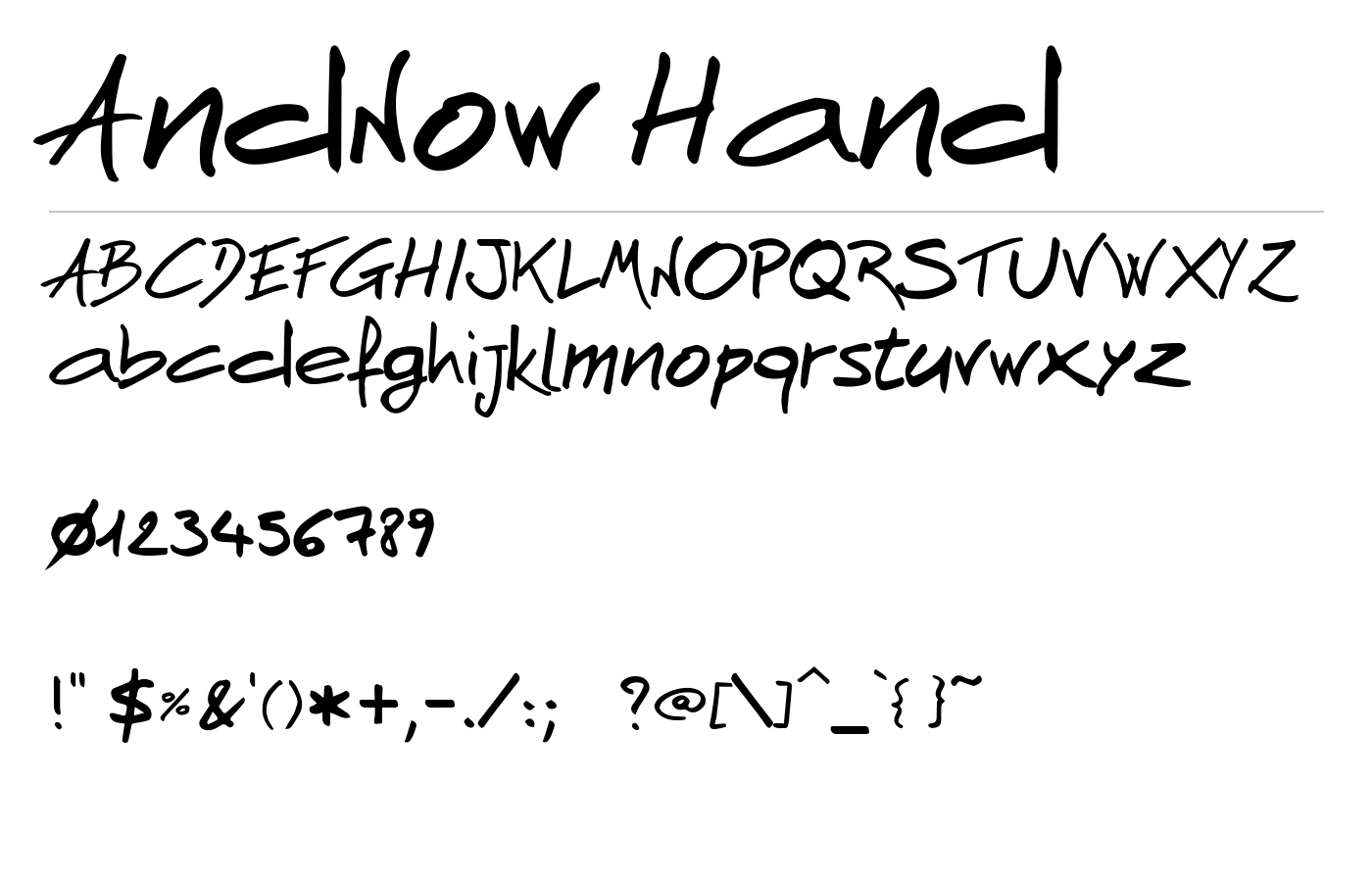
AndNow Hand is a casual, handwritten sans serif font with a lively and informal character. It features a medium weight with slightly varied stroke widths, playful letterforms, and a natural, flowing style that feels personal and approachable. This font works well for creative projects, casual branding, invitations, and any design needing a friendly, hand-crafted touch.
AndNow Hand Font
About AndNow Hand Font
| Designer | Luca Tornatola |